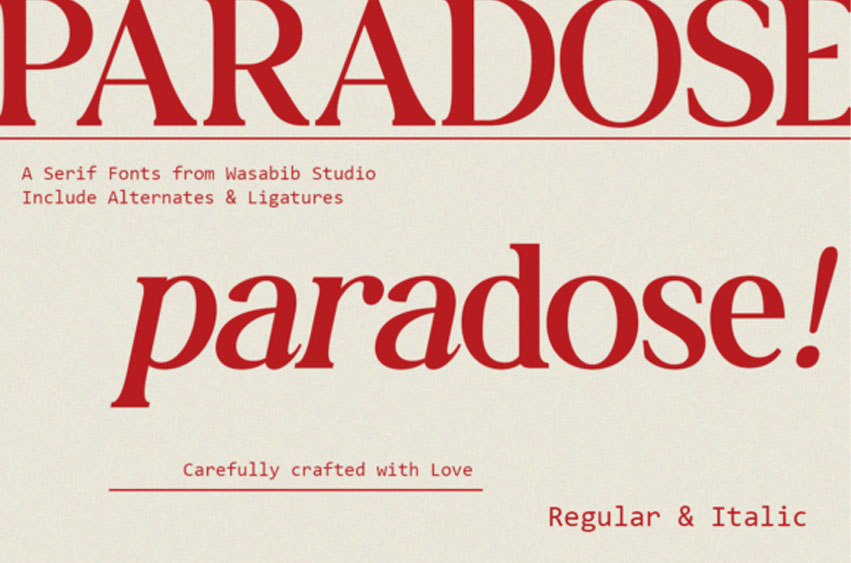
Paradose Font
Paradose Font is an elegantly designed typeface that seamlessly combines timeless elegance with contemporary aesthetics.
This font is the perfect blend of traditional serif characteristics and modern sophistication, making it suitable for a wide range of projects that require a touch of refinement.